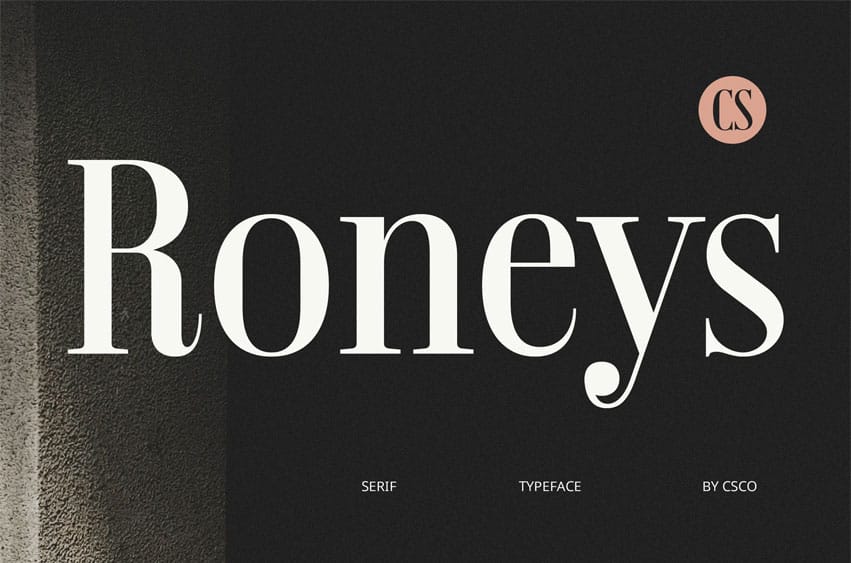
CS Roneys Font is a Timeless Serif with High-Contrast Precision. Roneys is a modern serif font that pays homage to the elegance of classic Didone typography. It features high contrast between thick and thin strokes, long and refined serifs, and a graceful vertical stress that adds sophistication to any composition. Drawing from historical roots yet designed with a clean, contemporary structure, Roneys offers a fresh interpretation of timeless elegance.
Slim Letterforms with a Captivating, Polished Look. Each character in Roneys is crafted with precision—its slim, sharp lines exude elegance while maintaining strong visual clarity. The elongated serifs and crisp finishes bring a dramatic flair, resulting in text that’s both eye-catching and refined. This careful balance of form ensures Roneys stands out in both digital and print formats.
Ideal for Luxury Branding, Editorials, and Fashion. Roneys is the perfect choice for high-end branding, luxurious packaging, editorial design, and modern visual storytelling. Its graceful appearance complements fashion magazines, boutique logos, and design-focused layouts. Whether used in large display settings or elegant typographic treatments, it conveys sophistication with every letter.
Bridging Tradition and Modernity with Style. What sets Roneys apart is its ability to capture the grace of traditional typography while fitting seamlessly into contemporary design needs. It’s a versatile serif that elevates brand identities, enhances headlines, and supports artistic expression in a sleek, professional manner.